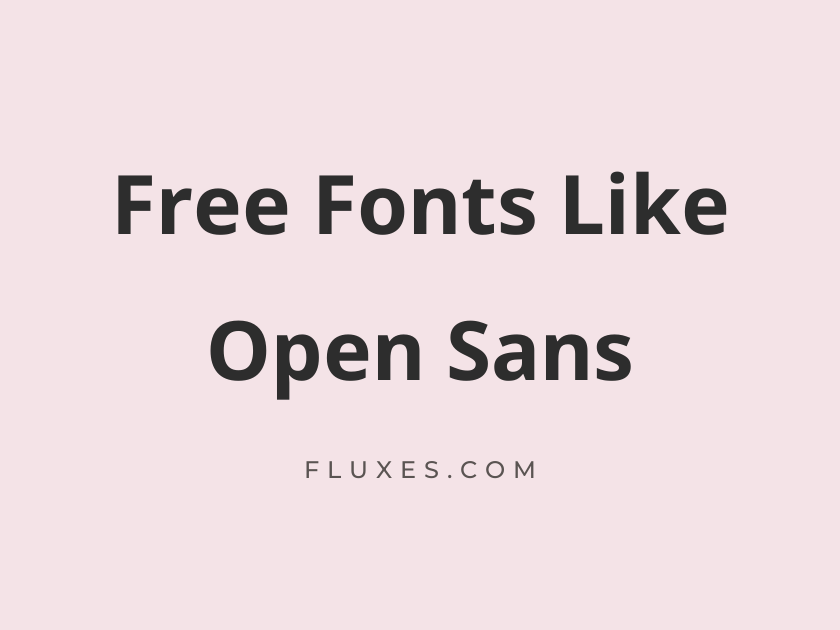
15 Best Free Fonts Similar to Open Sans
Open Sans has been a workhorse of web design for over a decade, prized for its humanist warmth, generous x-height, and the way it stays legible at nearly any size on screen. Its popularity means designers are constantly hunting for free Google Fonts alternatives that carry a similar neutral, friendly voice without feeling like a carbon copy. The fonts gathered here share that same DNA: open apertures, upright stress, and a lack of fussy personality that makes them reliable for interfaces, body copy, and long-form reading.
Consistent readability across every language and script
Noto Sans was built by Google with a specific mission: cover the world’s scripts with a single, unified visual voice. Its proportions and stroke weights land close to Open Sans, which makes it an obvious substitute for teams that need multilingual support without sacrificing that familiar neutral tone.
Clear, dependable text for reports and interfaces
Designed in Russia with Cyrillic and Latin harmony in mind, PT Sans carries a similar rounded warmth to Open Sans but with slightly more traditional letterforms. It reads well in dense paragraphs, making it a solid pick for documentation, reports, or anywhere clarity matters more than flair.
Clean, professional text for products and apps
Adobe’s first open-source typeface was engineered for user interfaces, and it shows in the tidy, unfussy letterforms. Source Sans 3 pairs naturally with Open Sans-style body text and holds up at small sizes in dashboards, forms, and settings panels.
Warm, approachable text for websites and apps
Lato splits the difference between humanist and geometric, giving it a slightly warmer, rounder feel than Open Sans while still reading as thoroughly modern. It has become a default choice for marketing sites and SaaS products that want approachable without being cutesy.
Everyday text built for screens and systems
As the default voice of Android, Roboto is arguably as ubiquitous as Open Sans itself. Its mechanical curves are a touch more geometric, so pair it with projects that want a slightly more technical, systematic feel rather than pure warmth.
Simple, optimized text for screens big and small
Work Sans was optimized for on-screen text at medium sizes, which puts it right in Open Sans territory for body copy and UI labels. It has a slightly more contemporary, squared-off character that feels at home in editorial and product design alike.
Where it struggles is at very large display sizes, where its restrained personality can feel a bit plain; save it for text roles and let a bolder headline font carry the drama.
Friendly, grotesque-inspired text for modern interfaces
Karla brings a quirky wink to a few letters (look at the lowercase “a” and “g”) while keeping its overall rhythm calm and readable. It is a good choice when a project wants the Open Sans level of comfort but a touch more character in the details.
Designed specifically for user interface legibility
Inter was drawn from the ground up for computer screens, with tall x-heights and near-square proportions that make it exceptionally crisp at small UI sizes. It has largely replaced Open Sans in many design systems for exactly that reason, and it offers an enormous weight range for teams that need one family to do everything.
Minimalist text with a friendly, rounded touch
Formerly known as Muli, Mulish is a minimalist sans with softened terminals that echo Open Sans’s approachability. It stays light and airy even in longer passages, which suits blogs and content-heavy sites that want text to feel unobtrusive.
Balanced, rounded text for friendly brands
Nunito Sans takes the rounded warmth of its display sibling and tunes it for paragraph text, resulting in letterforms that feel gentle without turning cartoonish. It is a comfortable match for lifestyle brands, newsletters, and anywhere a slightly softer alternative to Open Sans is welcome.
Fira Sans
Precise, technical text for code and content
Fira Sans
Born out of Mozilla’s Firefox OS project, Fira Sans balances technical precision with humanist warmth, making it equally at home in code documentation and marketing copy. Its wide range of weights and widths gives it more flexibility than Open Sans for building out a full type system.
Casual, humanist text with rounded warmth
Cabin borrows some of its structure from classic humanist sans faces like Gill Sans but keeps a casual, unpretentious rhythm that sits comfortably next to Open Sans. It works nicely for small businesses and personal sites that want text with a bit of character but nothing showy.
Straightforward text built for government and civic sites
Public Sans was commissioned by the U.S. federal government’s design system, so it was built to be as neutral, accessible, and unobtrusive as possible. It is a natural pick for civic projects, documentation, and any interface where clarity has to outrank style.
For multilingual projects, prioritize Noto Sans or PT Sans, since both were designed with broader script coverage from the start.
Stick to two families per project: one for body text from this list, and one distinct display face for headings.
Any of these free Google Fonts can step in for Open Sans without asking your readers to relearn how to read your site. The right pick comes down to how much warmth, neutrality, or technical polish your particular project needs.